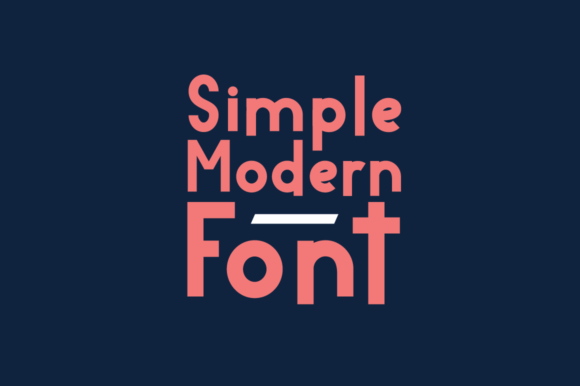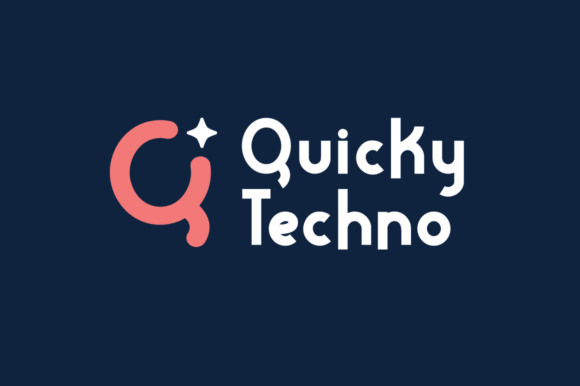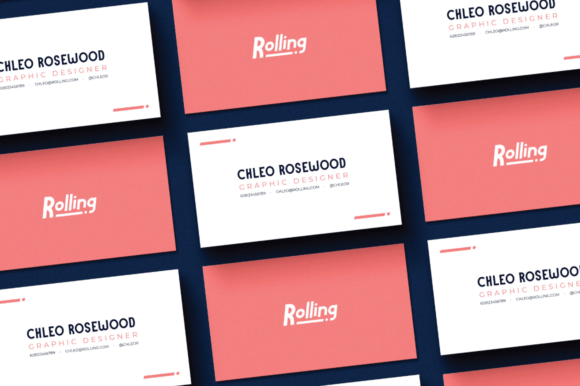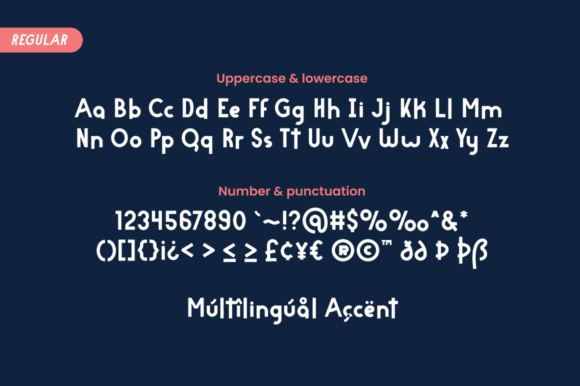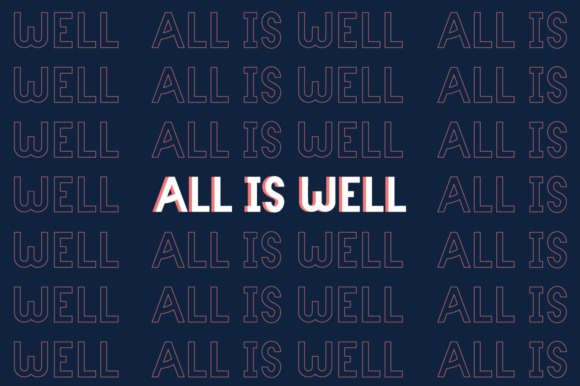
Introduction to Gotto Font
Have you ever stared at a blank page, wondering how to bring your creative vision to life? For designers, this moment can be daunting, but with the right tools, it can also be exhilarating. That’s where the Gotto Font comes in – a modern sans-serif font that’s as versatile as it is beautiful.
With its clean lines and minimalistic design, Gotto Font is perfect for a wide range of applications, from headlines to body text. Whether you’re working on a high-quality design project or need a reliable design resource, this font is sure to impress. And the best part? It’s available for free download, making it an accessible choice for designers of all levels.
As a valuable addition to any designer’s toolkit, the Gotto Font offers a transparent background that allows your creative vision to shine through. Its balanced proportions and geometric shapes make it a timeless and contemporary choice, perfect for any creative project that requires a touch of elegance and sophistication.
Key Features of Gotto Font
- High-quality design for various creative projects, including graphic design, digital art, and more.
- Transparent background, allowing for easy layering and manipulation in design applications.
- Comes in a single font size, making it versatile for use in various design contexts.
- Resolution-independent design, ensuring crisp and clear display on high-resolution screens.
- Unique, modern aesthetic that can add a touch of sophistication to any creative project.
Honest Review: Gotto Font
I recently came across the Gotto Font, and I must say it’s a great addition to any designer’s arsenal. This high quality font is perfect for any creative project that requires a clean and modern touch.
- ✨ Clean and modern design aesthetic
- ✨ Perfect for digital design projects
- ⚠️ Limited font variations (only a few styles to choose from)
- ⚠️ Transparent background may not be suitable for all design projects
Overall, I’m impressed with Gotto Font. It’s a great design resource that’s perfect for designers who want a high-quality font without breaking the bank. While it may have a few limitations, it’s definitely worth checking out for your next creative project.
Gotto Font
Tips for Getting the Most Out of Gotto Font
Use Gotto Font for creative projects that require a high-quality, unique font. Experiment with different font sizes and colors to create visually appealing designs. Also, consider combining Gotto Font with other design resources, such as images or graphics, to add depth and interest to your designs.
Gotto Font is commonly used for creative projects such as logos, social media graphics, brochures, business cards, resumes, and company reports. Its high-quality design and transparent background make it an ideal choice for design projects that require a professional look.